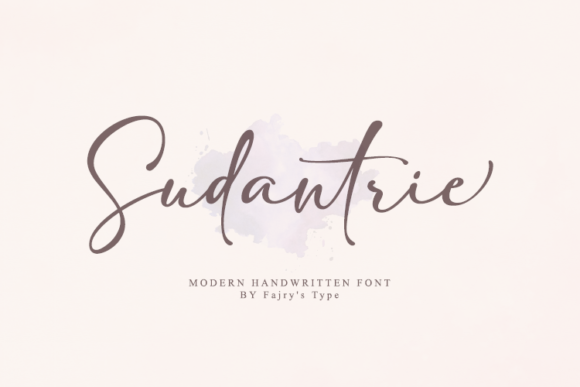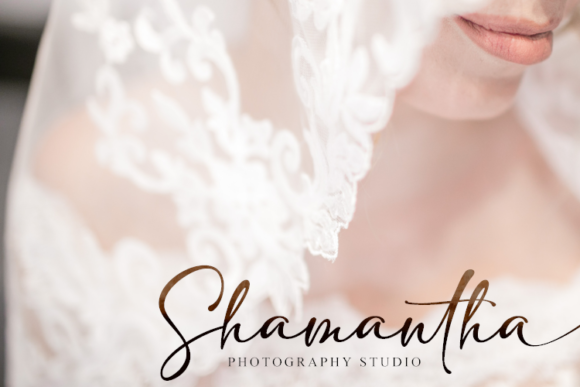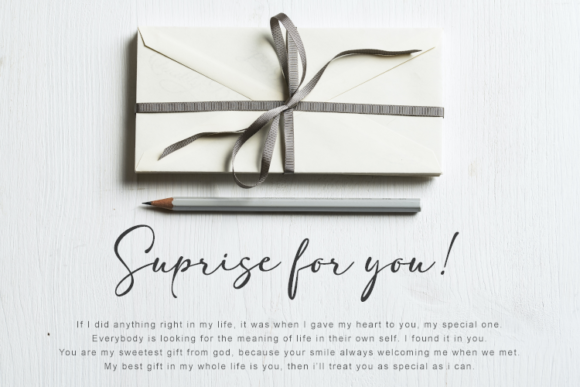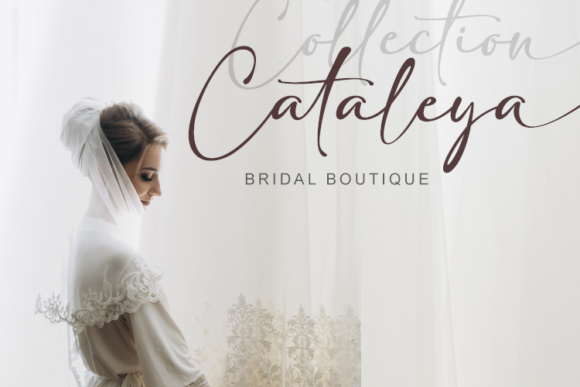
Sudantrie Font: Elegant Handwritten Script for Wedding & Branding Design
About the Sudantrie Font
Get ready to be inspired by Sudantrie Font, a fresh and dynamic typeface for modern creators. Sudantrie is a lovely and timeless handwritten font. It is the best choice for creating eye catching logos, branding and quotes. This font is PUA encoded which means you can access all of the glyphs and swashes with ease!
Sudantrie Font Usage Examples
Sudantrie Font Example